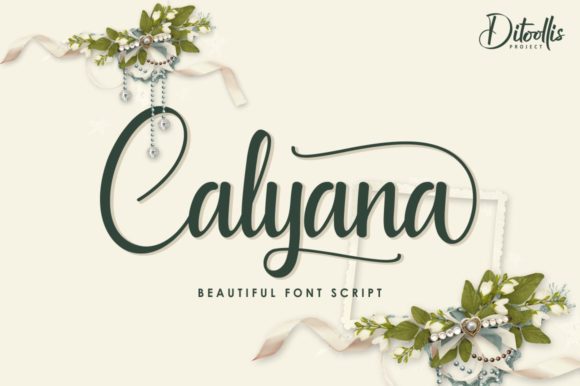
Discover the Elegance of Calyana Font: A Stunning Script with Authentic Swashes
Are you a designer or crafter looking for a typeface that exudes elegance and sophistication? Look no further than the Calyana Font, a stunning script that is sure to inspire your creative projects. With its authentic swashes and incredibly radiant design, Calyana is the perfect choice for anyone seeking to add a touch of luxury to their work.
What is Calyana Font?
Calyana is a beautiful script font that features authentic swashes, giving it a unique and distinctive look. Designed to evoke the feeling of high-end elegance, Calyana is perfect for use in a variety of creative projects, from wedding invitations and stationery to branding and advertising materials.
Key Features of Calyana Font
- Authentic Swashes: Calyana’s swashes are carefully crafted to add a touch of sophistication to your designs. With a range of swash options to choose from, you can customize your text to suit your project’s needs.
- Stunning Script Design: Calyana’s script design is both elegant and refined, making it perfect for use in high-end designs.
- Radiant and Eye-Catching: Calyana’s unique design makes it stand out from other typefaces, ensuring that your designs will grab attention and leave a lasting impression.
- Highly Versatile: Calyana can be used in a wide range of creative projects, from digital designs to print materials.
Calyana Font is the perfect inspiration for designers and crafters looking to create stunning and sophisticated designs. Whether you’re working on a wedding invitation, a branding project, or a craft tutorial, Calyana’s elegant design and authentic swashes are sure to spark your creativity.
Using Calyana Font in Your Designs
Using Calyana Font in your designs is easy. Here are a few tips to get you started:
- Pair with a Simple Font: Pair Calyana with a simple font to create a striking contrast and add visual interest to your design.
- Experiment with Swashes: Don’t be afraid to experiment with Calyana’s swashes to find the perfect combination for your design.
- Use in Headlines and Titles: Calyana is perfect for use in headlines and titles, where its elegant design and authentic swashes can really shine.
Benefits of Using Calyana Font
There are many benefits to using Calyana Font in your designs. Here are just a few:
- Adds Elegance and Sophistication: Calyana’s elegant design and authentic swashes add a touch of luxury to any design.
- Stand Out from the Crowd: Calyana’s unique design ensures that your designs will stand out from the crowd and grab attention.
- Highly Versatile: Calyana can be used in a wide range of creative projects, making it a great addition to any designer’s toolkit.
| Author | Ditoollis Project |
In conclusion, Calyana Font is a stunning script with authentic swashes that is sure to inspire designers and crafters. With its elegant design, highly versatile nature, and range of swash options, Calyana is the perfect choice for anyone seeking to add a touch of luxury to their creative projects. So why not give Calyana a try and see the difference it can make in your designs?
Get Inspired by Calyana Font
Get inspired by Calyana Font and discover a world of creative possibilities. Whether you’re a designer, crafter, or simply someone who appreciates beautiful typography, Calyana is sure to delight. So take a closer look at Calyana today and see how this stunning script can elevate your designs to new heights.